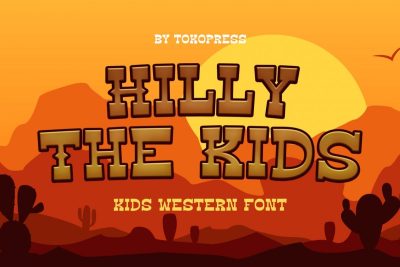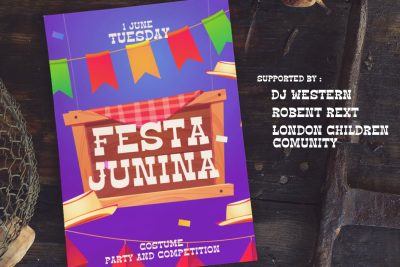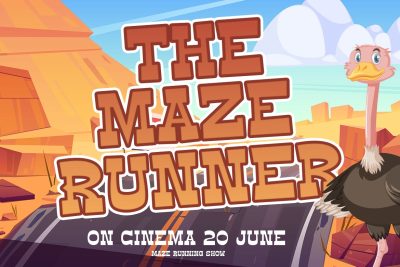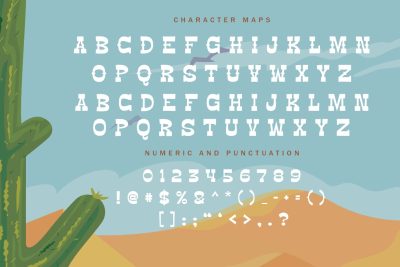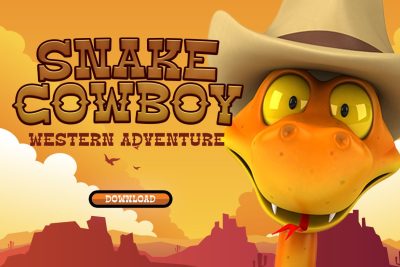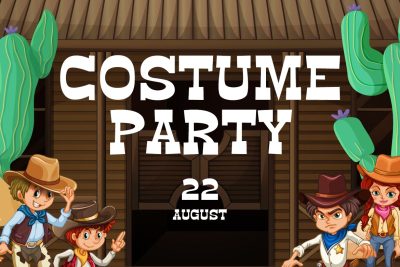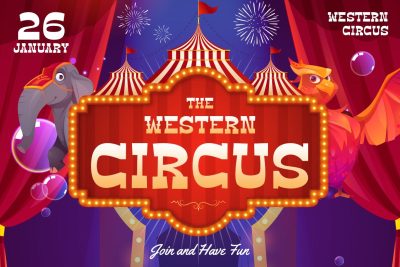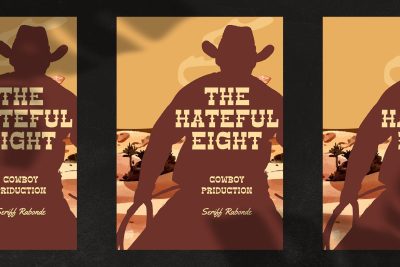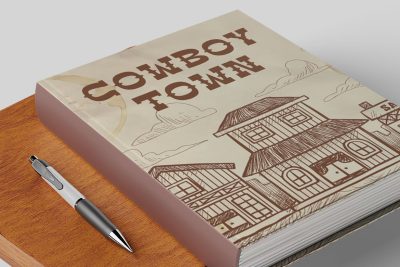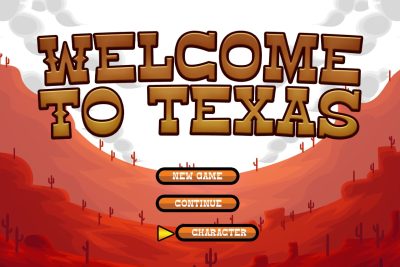
Western Font Hilly The Kids is a lively typeface that brings the charm of the Wild West into kid-friendly designs. With bold, playful letterforms and a fun, blocky style, this font blends Western aesthetics with a cheerful personality. It evokes cowboy adventures, while its sunny, warm color palette, like desert sunsets and rolling hills, adds a touch of warmth. Furthermore, its rounded edges and dynamic proportions make it approachable and versatile, which is perfect for designs targeting younger audiences or those conveying a lively, adventurous spirit.
The font stands out for its creative design, evoking classic Western settings with a modern twist. Whether you’re working on posters, banners, or logos, Hilly The Kids grabs attention while staying readable. In addition, its playful yet structured appearance works well across different mediums, from print to digital. As a result, the blend of nostalgia and youthful appeal makes it a standout choice for creative projects.
Western Font Hilly The Kids Best Suited For
Hilly The Kids is great for designers, educators, and entrepreneurs wanting to add Western adventure to their projects. For instance, itโs perfect for children’s content, like storybooks, activity sheets, and educational resources. Teachers and parents can use it to make lessons more engaging and visually appealing, ย also comes with plenty of nature foliage and floral elements, giving it an organic and natural style that is sure to impress.
For businesses, itโs ideal for toy brands, party planners, or rustic-themed venues like family restaurants or cowboy-themed events. Moreover, graphic designers can use it for branding, packaging, or promotional materials. Its bold style also works well for event invitations, product labels, and gaming content.
Additionally, Hilly The Kids is perfect for social media graphics, video thumbnails, or website headers. Its boldness ensures it stands out in crowded feeds. Whether your project involves fun, learning, or storytelling, this fontโs cheerful vibe makes it a great choice for all age-friendly designs.